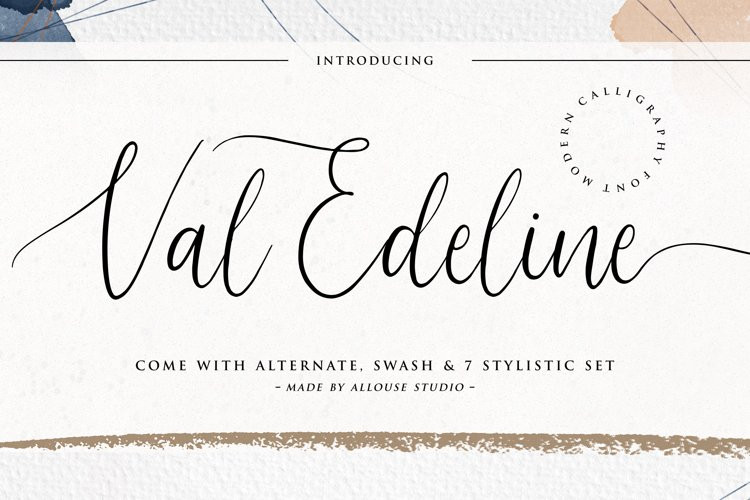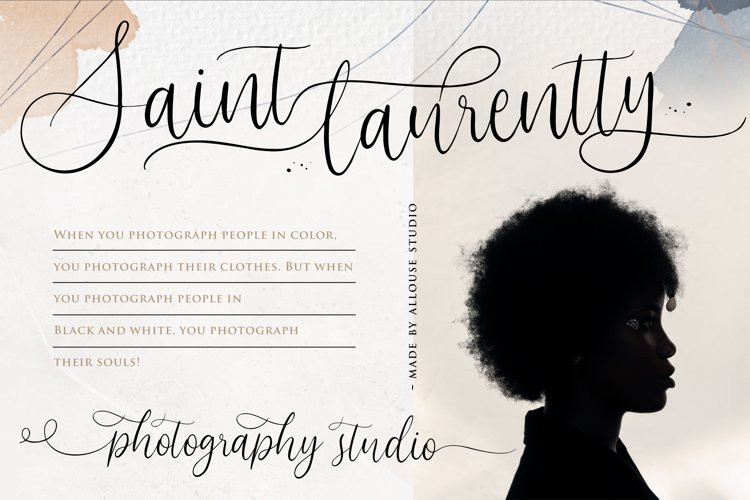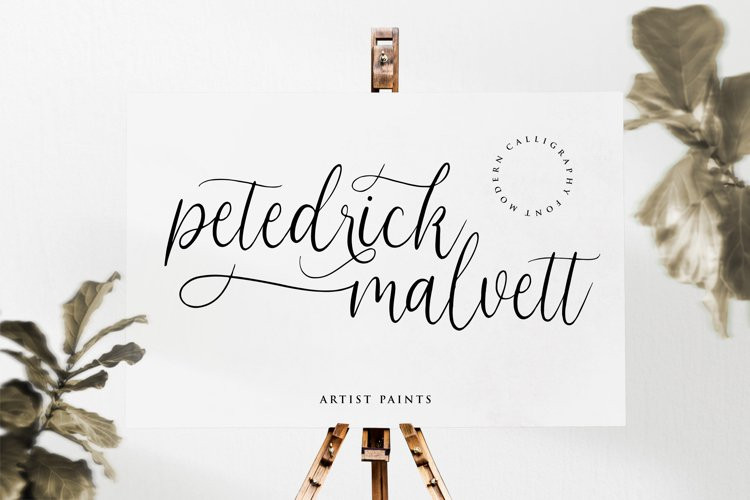
Val Edeline Font
Val Edeline is a Modern Calligraphy Font
Val Edeline is perfect for product packaging, branding project, megazine, social media, wedding, or just used to express words above the background.